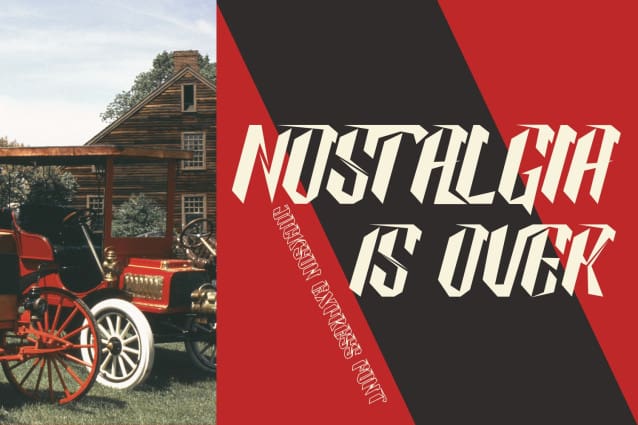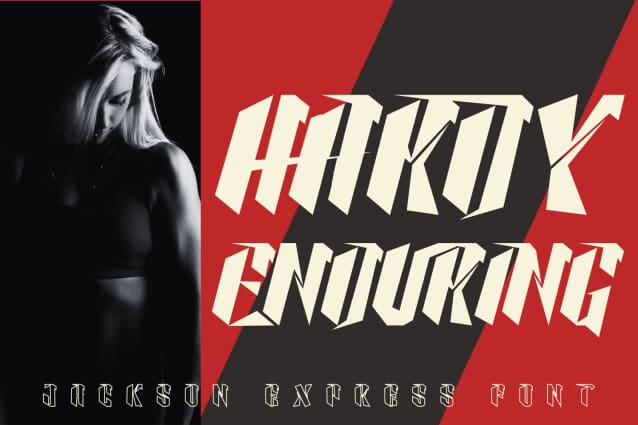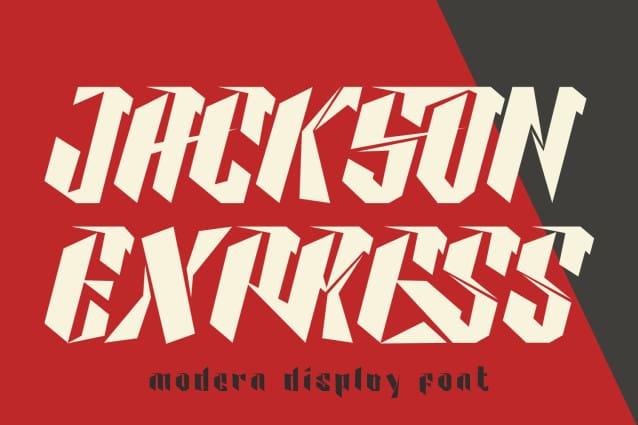
Jackson Express Font
JACKSON EXPRESS FONT? here we have a unique display font for your brand. Speed/fast and Super for this Speed racer display font. A font that exudes strength, energy, modernity, and speed. Its unique design with sharp edges gives it a powerful and fantastic impression. It’s can be used for futuristic, sci-fi, sports, and automotive designs., this font is perfect for any project that needs a strong and dynamic look such as display, headline, football poster, basketball, race poster, sticker, t-shirt design, merchandise, or jersey.
JACKSON EXPRESS was built with OpenType features and includes 100 ligatures, alternate, numbers, punctuation, and it also supports other languages.